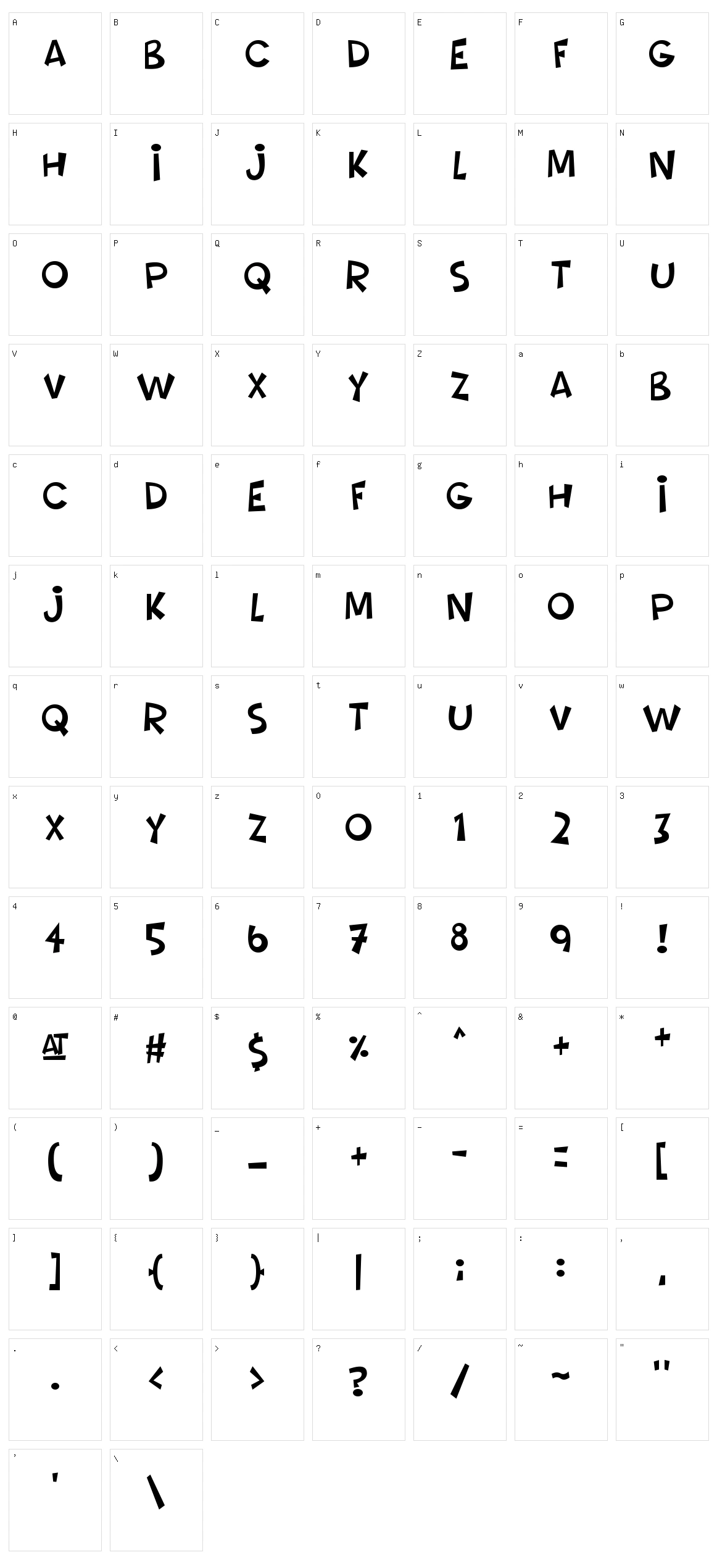
The free font Comictastic is carefully designed by Hawtpixel, showcasing a thoughtful balance of creativity and usability and falls under the Cartoon font style. When you download the ZIP file, it contains only 81.95 KB of font files, making it lightweight and quick to download. Please review the license details below to understand permitted usage and distribution rights. If license information is not available, we recommend using this font for personal projects only or contacting the author directly for commercial usage permissions.